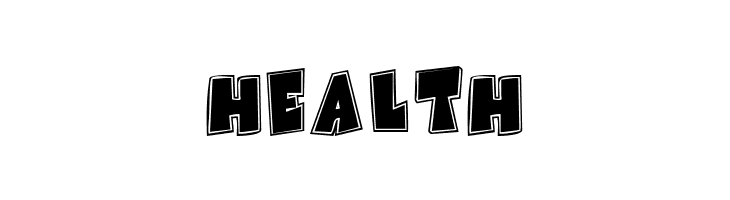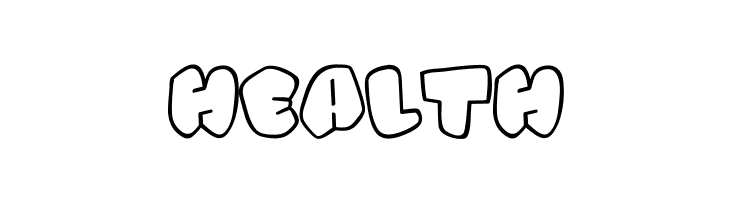
A bold, playful font with a shadow effect and cartoonish style.
A playful, bold font with a distinctive shadow effect and cartoonish style.
A playful, bold font with a cartoonish style and shadow effect.
A playful, bold font with rounded edges and a cartoonish style.
A bold, outlined, and playful font with a cartoonish style.
A bold, playful font with rounded strokes and a cartoonish style.
A bold, 3D extruded font with a playful, cartoonish style.
A playful, bold, and cartoonish font with thick, uneven strokes and a hand-drawn feel.
A bold, playful font with a cartoonish, dynamic style.
A bold, playful outline font with a cartoonish and energetic style.
A playful, bold font with cartoonish, exaggerated curves and a lively appearance.
A playful, bubbly font with exaggerated curves and a cartoonish style.
A bold, playful outline font with a cartoonish flair.
A bold, playful font with rounded strokes and a cartoonish style.
A playful, bold outline font with a cartoonish and whimsical style.
A bold, playful font with a cartoonish style and shadow effect.
A bold, playful font with a 3D shadow effect and cartoonish style.
A playful, bold outline font with a cartoonish style.
A bold, playful font with exaggerated curves and a cartoonish style.
A bold, playful outline font with a cartoonish and three-dimensional effect.
A bold, cartoonish font with thick outlines and playful, rounded characters.
A bold, playful font with a cartoonish, hand-drawn style.
A bold, playful font with rounded, cartoonish characters and a hand-drawn feel.
A bold, playful font with cartoonish, uneven strokes and exaggerated curves.
A playful, bold, and hand-drawn font with a lively, cartoonish style.
A bold, playful typeface with a cartoonish style and exaggerated curves.
A bold, playful font with a cartoonish and whimsical style.
A playful, bold font with cartoonish, exaggerated curves and dynamic style.
A bold, playful font with rounded, cartoonish characters.
A bold, playful font with a cartoonish and whimsical style.
A bold, playful font with a cartoonish and dynamic style.
A bold, cartoonish font with sharp edges and thick outlines.
A bold, outlined font with a playful and cartoonish style.
A playful, bubble-like font with thick outlines and a cartoonish style.
A bold, playful font with a hand-drawn, cartoonish style.